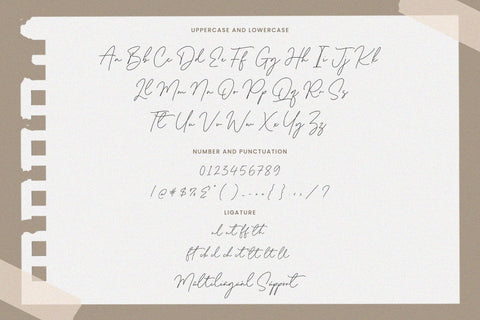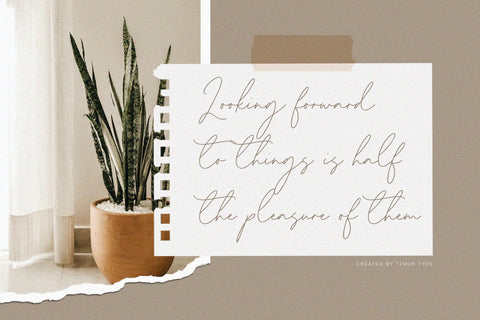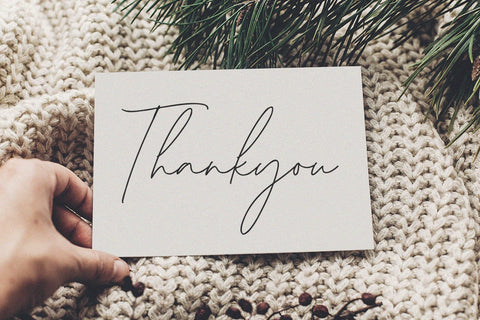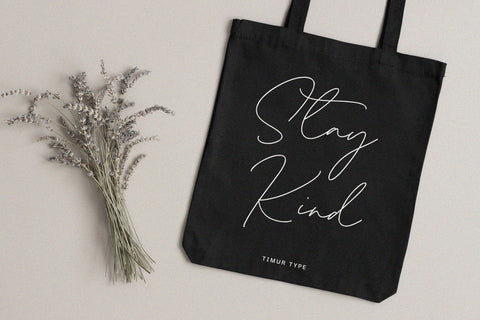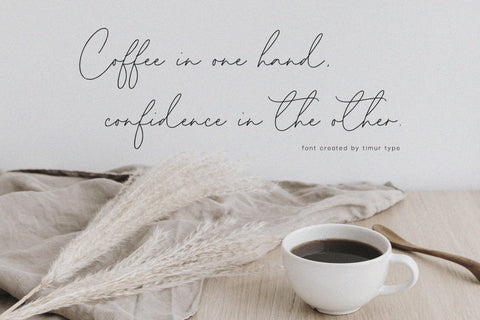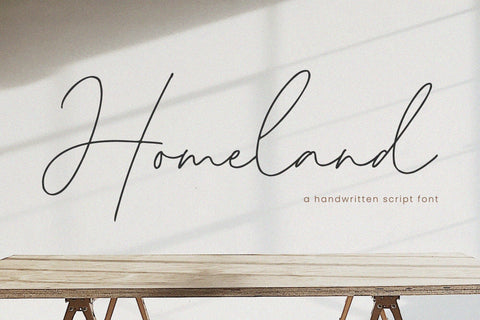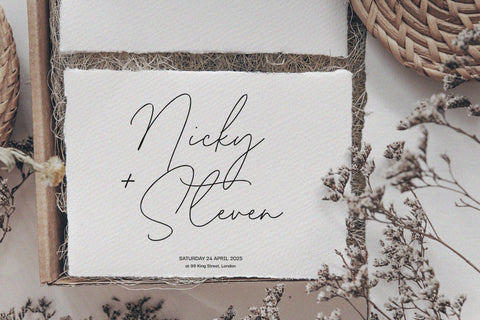
Homeland - Handwritten script Font
Proudly Present,  Homeland
Homeland - Handwritten script Font, which was created with great care and specially created for you .
Homeland is best for:
- logos, branding, & Signatures.
- Flyers, Album cover, Magazine, & Advertisements.
- Website design , design blogs, & fashion.
- Quote graphics for social media.
- and also it works great for other projects.
- Character Set
- Numerals and Punctuation (OpenType Standard)
- Accents (Multilingual characters)
- Ligature & Swash